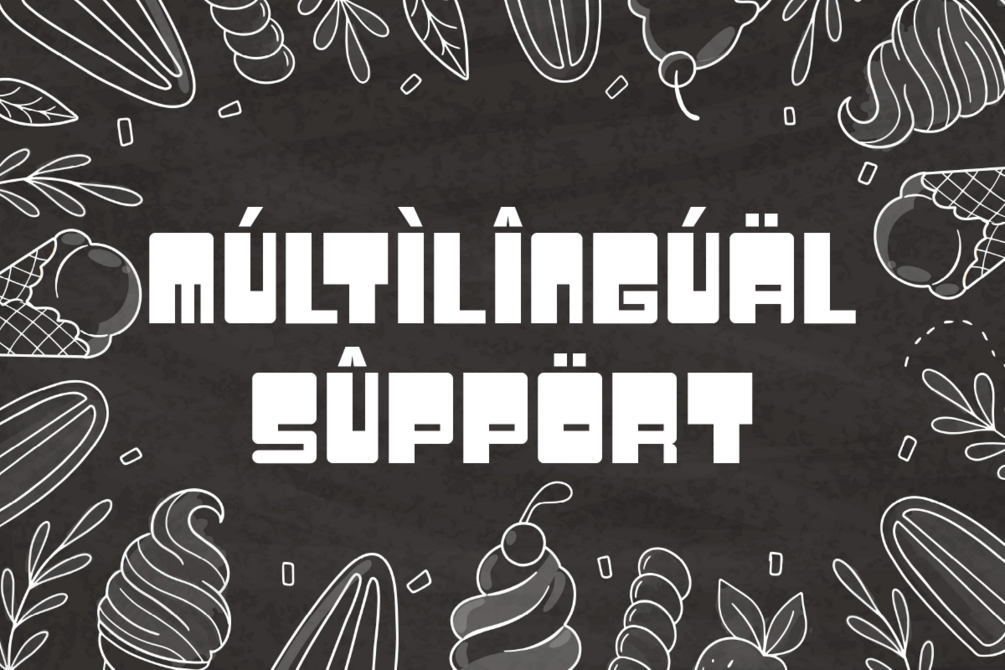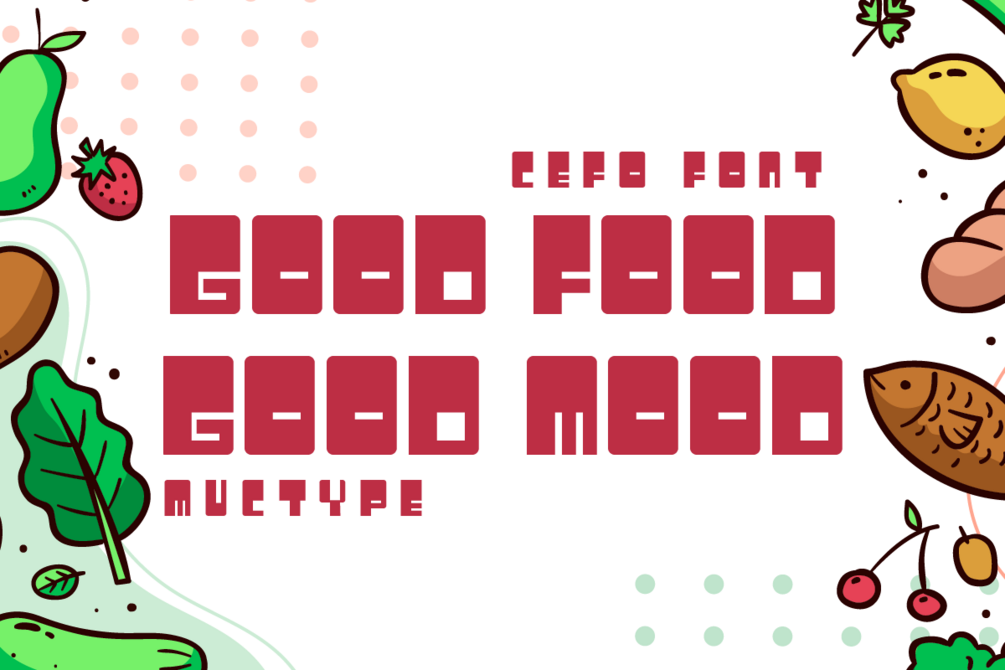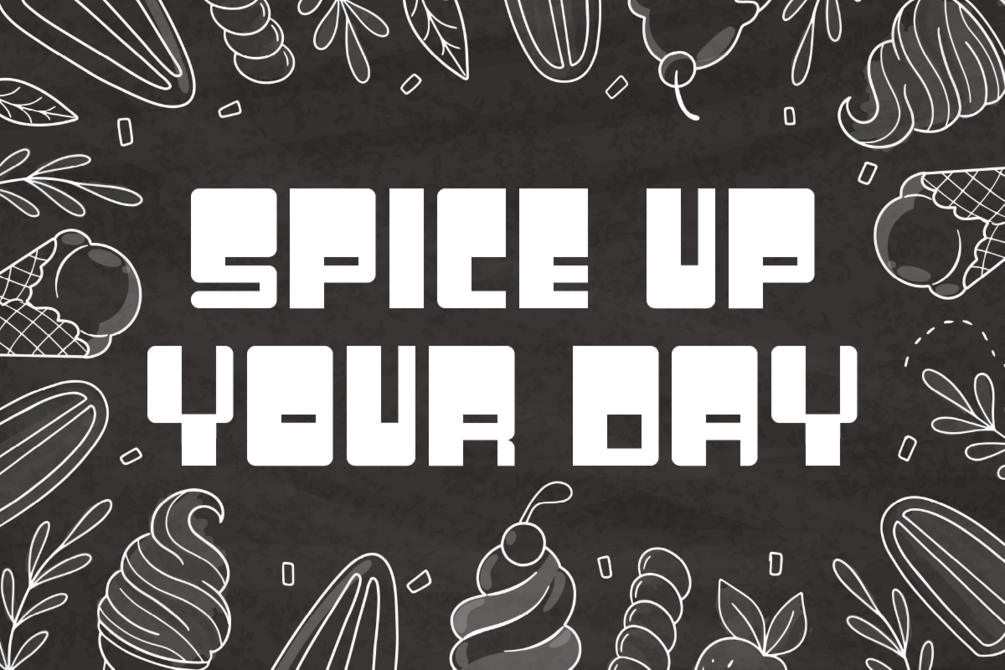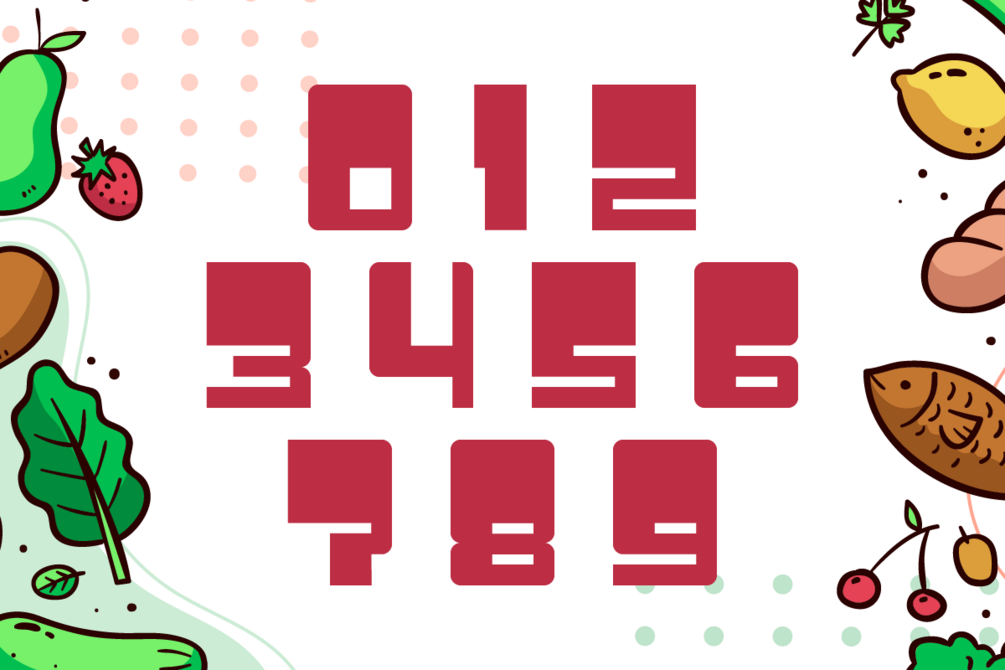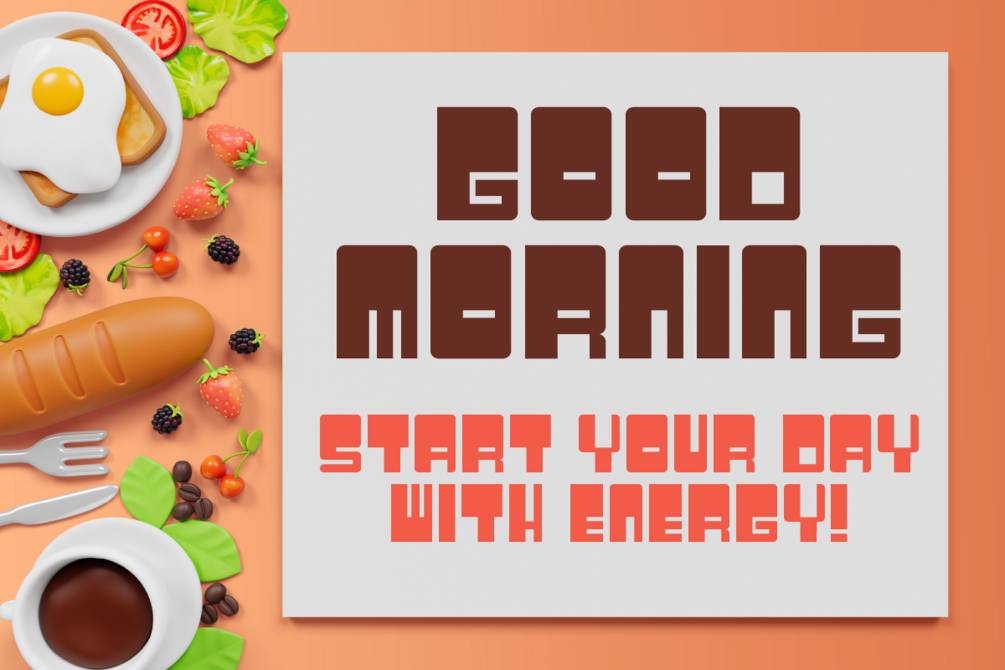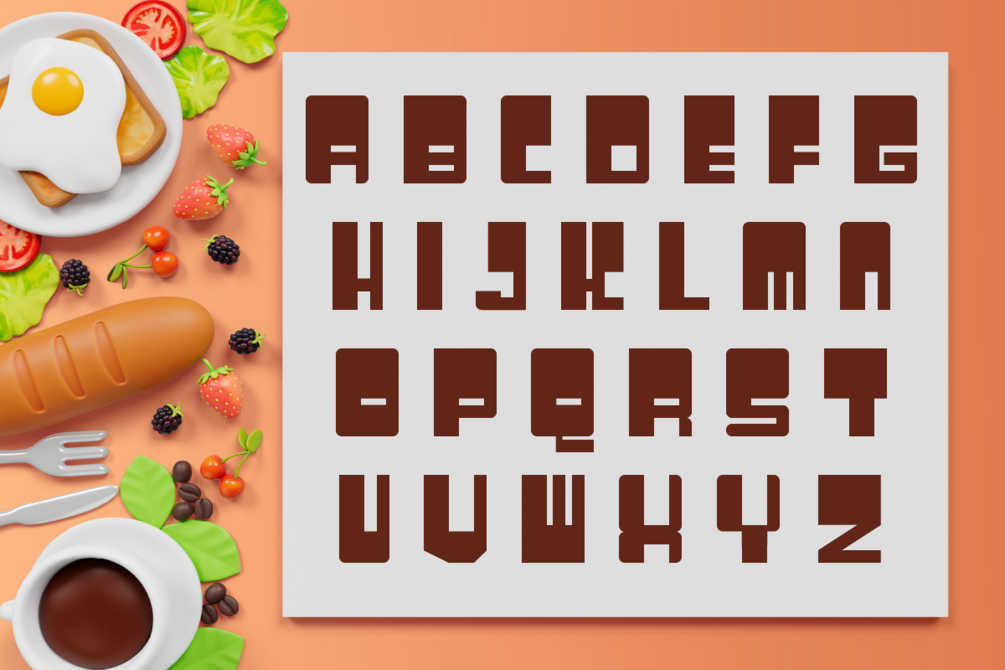
Cefo – Playful Food Display Typeface
CEFO is a bold and quirky display food font designed to bring fun, freshness, and playful energy into your creative projects. Inspired by the colorful world of culinary ingredients, CEFO blends chunky geometric shapes with a clean modern style, making it perfect for food branding, restaurant menus, children’s packaging, cooking YouTube thumbnails, organic product labels, and cheerful promotional designs.
With its strong blocky letters and friendly handcrafted vibe, CEFO adds an eye-catching charm that easily stands out in any layout. Ideal for headlines and short text, this exclusive font delivers a unique personality you won’t find anywhere else.